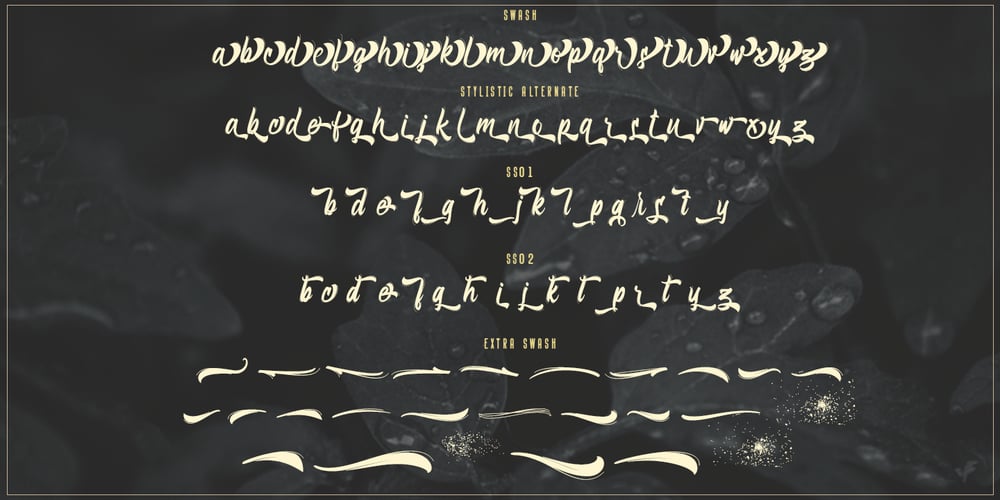
Bellsmore Brush
Bellsmore Brush font
Bellsmore Brush Font Family was designed by Rochadi Sudarma and published by Rochart. Bellsmore Brush contains 2 styles and family package options. Bellsmore brush script is a font that contains more of alternate and some swashess. This fonts designed to complement each other in their use. Bellsmore brush script is perfect for logo design, t-shirts, flyers, apparel, packaging, advertising, wedding Invitation etc. This typeface contain of Uppercase, Lowercase, Alternate, Number, Symbol, Punctuation, Ligature and bonus swashes. Also support multilingual and already PUA encoded.Here is what you get in the download : Bellsmore Brush (Uppercase letters, lowercase letters, numbers, punctuation, ligatures and alternate. Also support Multilingual and PUA) || OTF. Bellsmore Brush Swashes (Contains of swashes) || OTF.